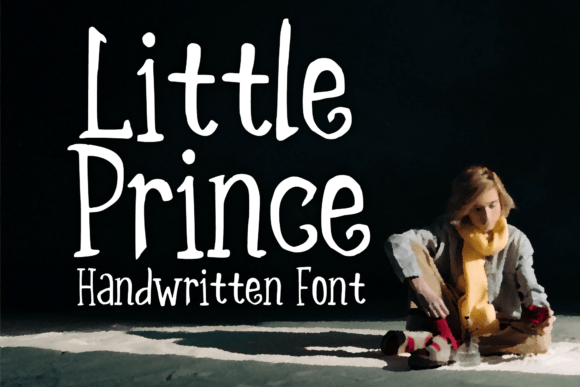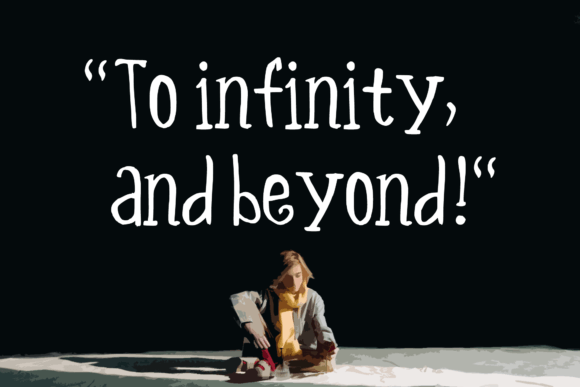
About Little Prince Font
Little Prince is a playful handwritten font inspired by classic fairy tales and childhood imagination. Its charming, storybook style makes it the perfect choice for projects that need a sense of wonder and warmth. Whether you’re designing for kids or adding a friendly touch to your creations, Little Prince is ready to bring your ideas to life.
A Whimsical Fairy Tale Feel
Little Prince was carefully crafted to look like handwriting straight out of a magical bedtime story. Each letter has a smooth, flowing style that feels organic and relaxed. The soft curves and delicate details add a gentle, comforting vibe.
This font has a balance of playfulness and clarity, making it ideal for designs that should feel joyful but still easy to read. It’s like adding a touch of fairy dust to every word you write.
Perfect for a Variety of Projects
Thanks to its versatility, Little Prince can enhance all kinds of creative projects, such as:
T-Shirts: Add cute quotes or illustrations to kids’ apparel.
Kids’ Books: Use it for story titles, chapter headings, or captions.
Greeting Cards: Design sweet cards for birthdays, baby showers, and special occasions.
Stickers: Create adorable stickers for planners, scrapbooks, or crafts.
Posters: Make colorful, cheerful posters for classrooms, libraries, or nurseries.
Invitations: Craft invitations for parties and events with a whimsical flair.
No matter where you use it, Little Prince will make your design stand out with its playful, hand-crafted feel.
Pair it with sans-serif fonts for clean, modern contrast or mix it with doodle illustrations for a more artistic look. This adaptability makes it a great addition to any designer’s toolkit.
Design Tips for Little Prince
Here are a few ways to make the most of this font:
Keep layouts clean: Let the lettering shine without too much clutter.
Add bright colors: Pair the font with soft pastel backgrounds or vibrant tones.
Use illustrations: Enhance the fairy tale feel with hand-drawn elements or watercolor textures.
Mix sizes: Combine large, playful headlines with smaller text for balance.
These ideas will help you create magical, eye-catching designs that delight your audience.
Bring Your Designs to Life
Little Prince isn’t just a font—it’s an invitation to dream and explore your creativity. With its warm, friendly style, it can transform any project into something truly memorable.
Whether you’re working on a kids’ book, crafting gifts, or designing playful products, Little Prince will inspire you to tell your story with heart.